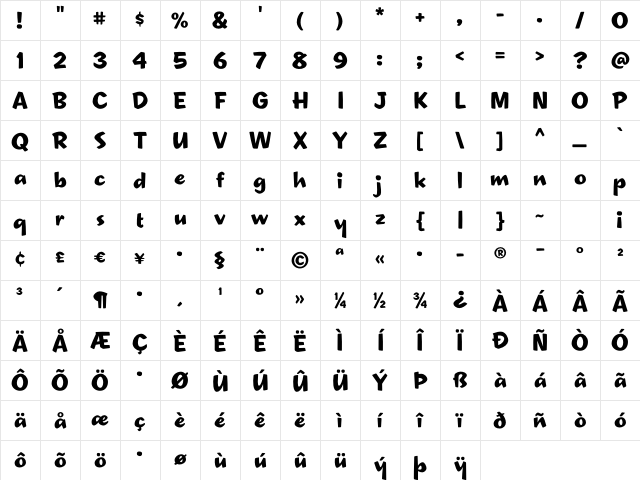
Las VegasOT Castaway
Style: Castaway
Designer: Ken Barber
Design Context for Las VegasOT
Las VegasOT is a composed and adaptable typeface that performs quietly and consistently across a wide range of design contexts.
Pro Tip: Use Las VegasOT in both headline and body roles to test its range before committing to a single application.